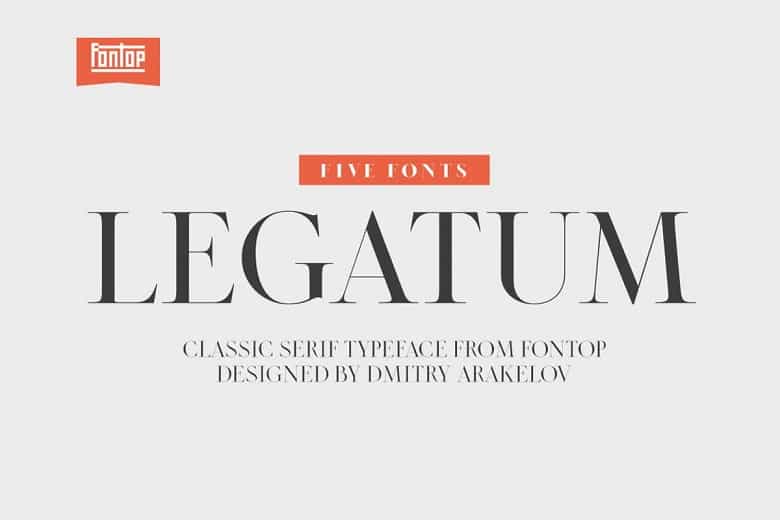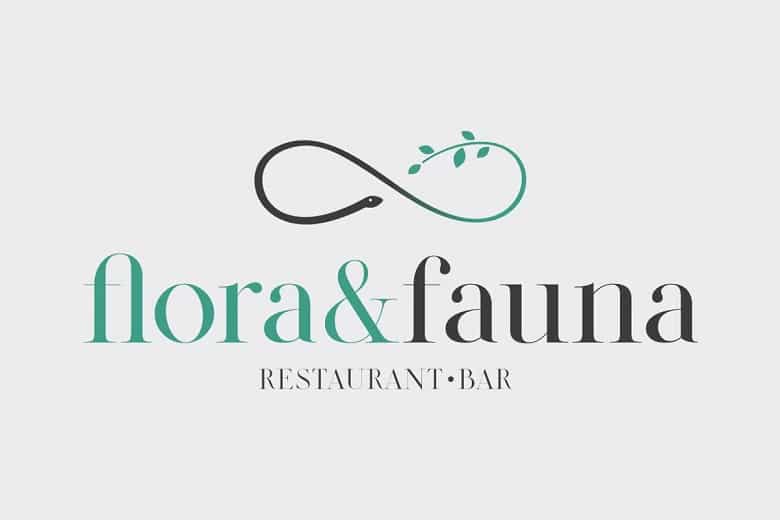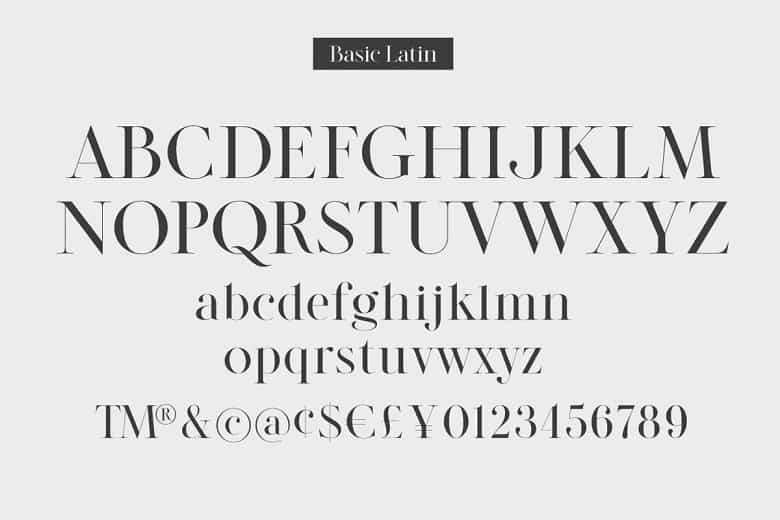
Legatum is a classic serif font family inspired by roman sycamore, columns and other peculiarities of architectural designs of the Eternal City. Due to the shapes and the high contrast of the letters on the signs they look very stylish, classy and appealing. Nice for titles of posters, texts in magazines, books. It can also be applied to logos and to blog entries.